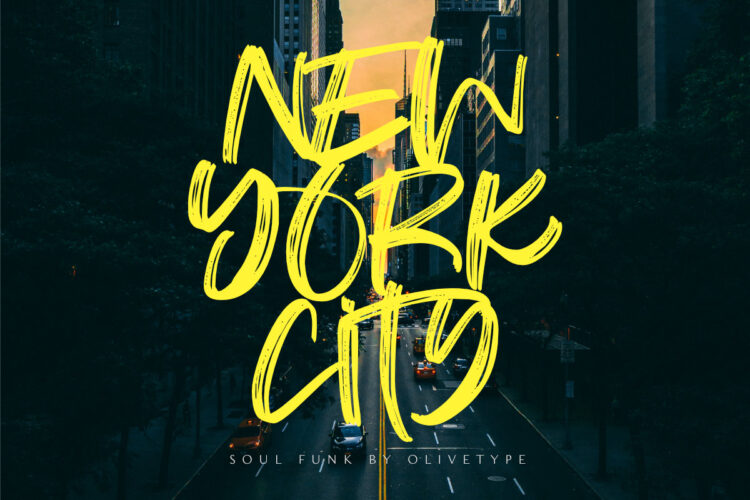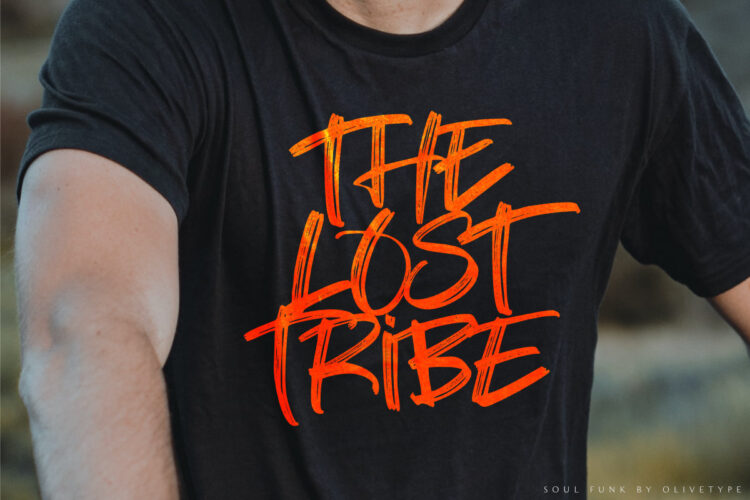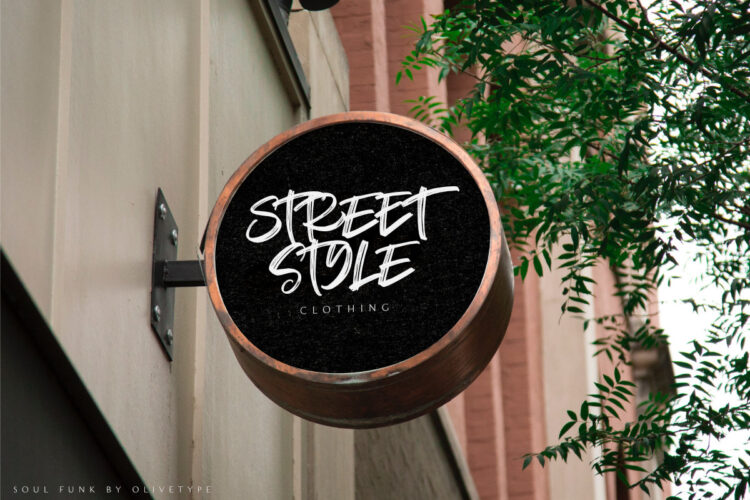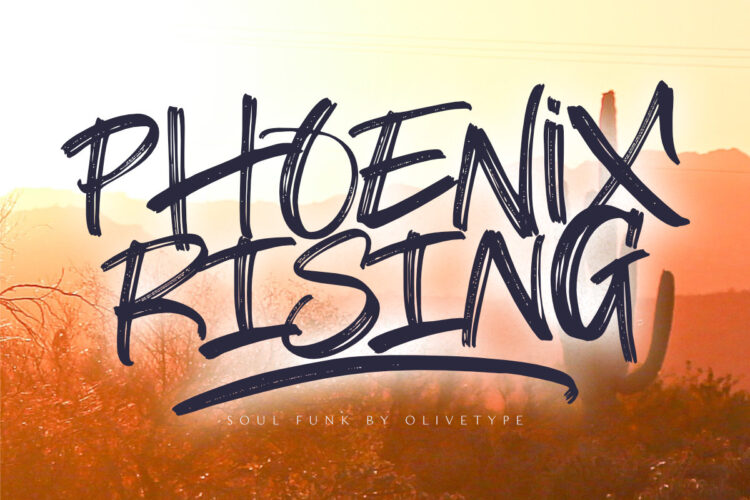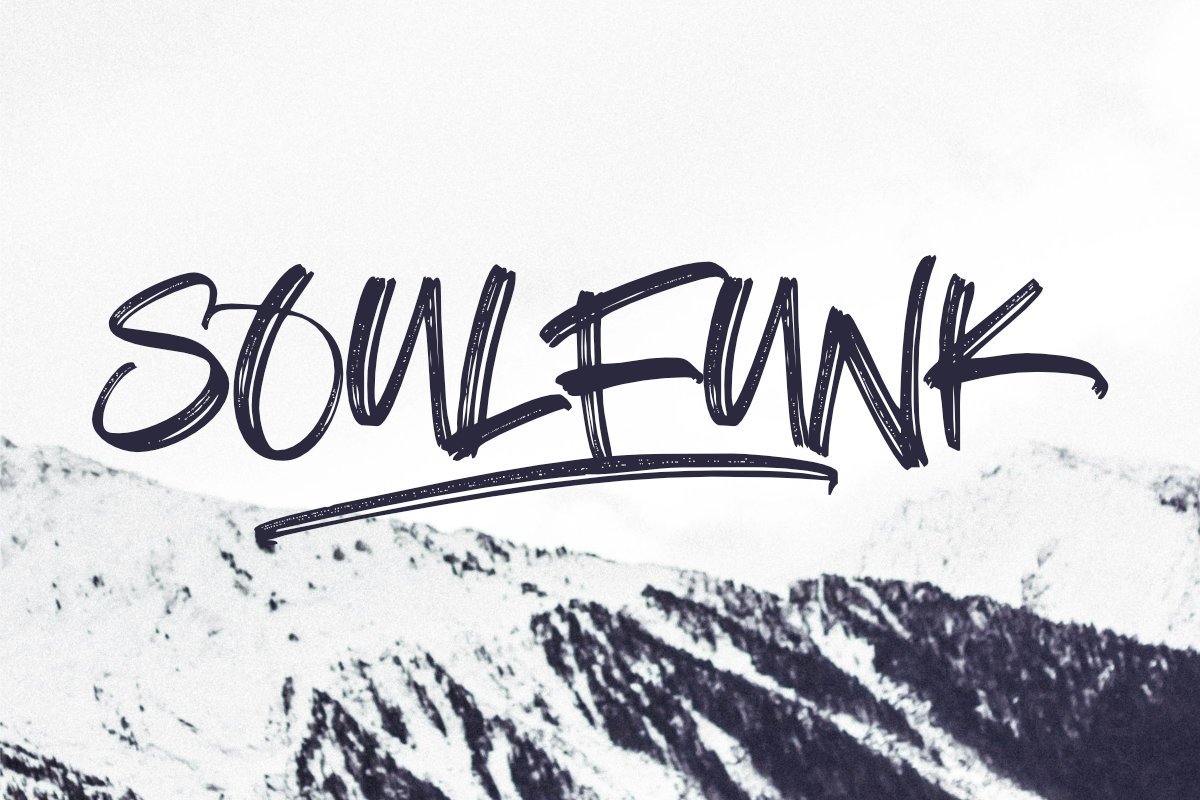
Soulfunk is a stunning and authentic hand brush font with a graffiti-style feel. Get inspired by its unique charm, and turn any design project into a true stand-out. This brush typeface is supporting Multi-Languages, which include: Afrikaans Albanian Catalan Danish Dutch English Estonian Finnish French German Italian Norwegian Portuguese Spanish Swedish Zulu.
- Basic Latin A-Z & a-z.
- Numbers, symbols, and punctuations.